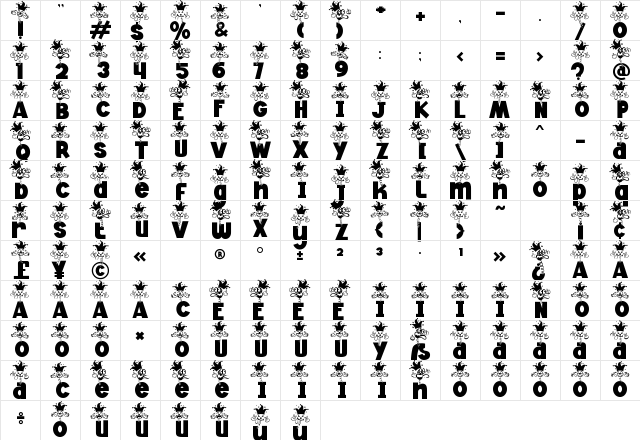
Jester Jumble Surprise Regular
Foundry: Putracetol Studio, Karanganyar.
Designer: Putra Novembria Candra Kusuma
Complete Jester Jumble Surprise Regular glyph index. Displaying only characters natively supported by Jester Jumble Surprise Regular font.
Design Context for Jester Jumble Surprise
Jester Jumble Surprise is a composed and adaptable typeface that performs quietly and consistently across a wide range of design contexts.